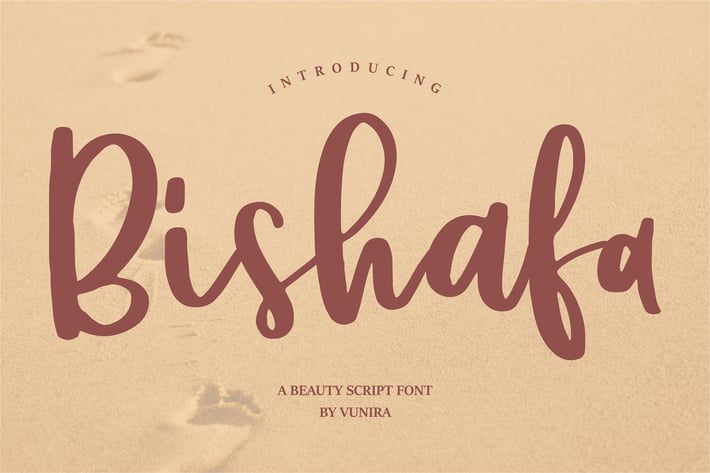
Bishafa | A Beauty Script Font
Bishafa | A Beauty Script Font with a calligraphy style, So beautiful on invitation like greeting cards, branding materials, business cards, quotes, posters, and more!